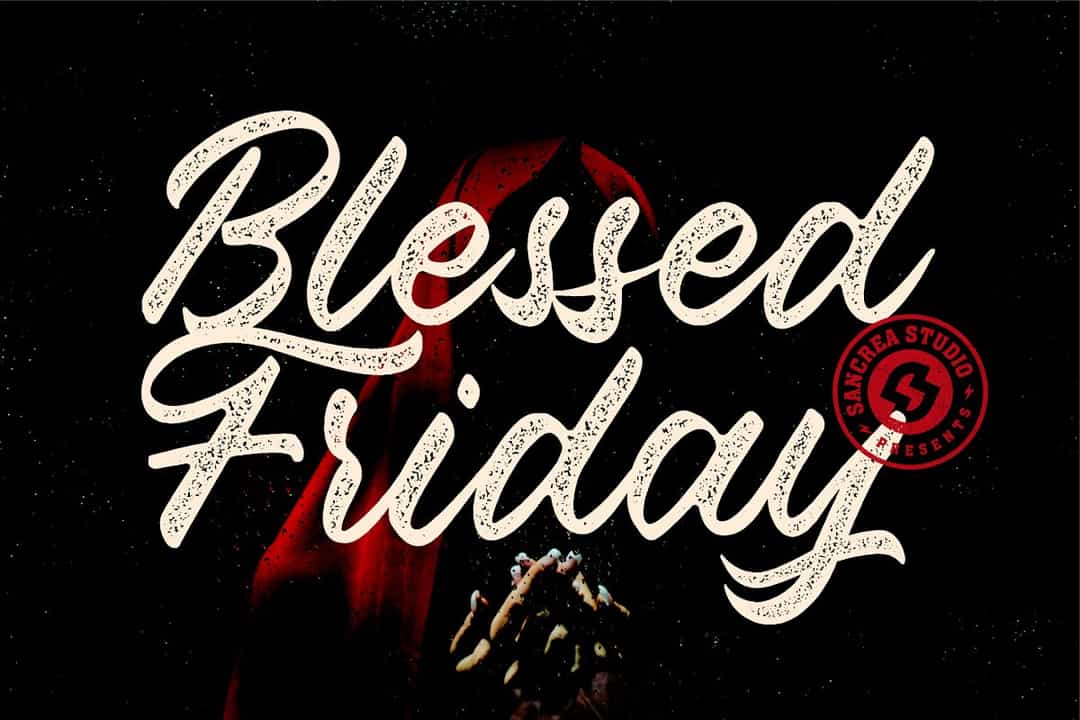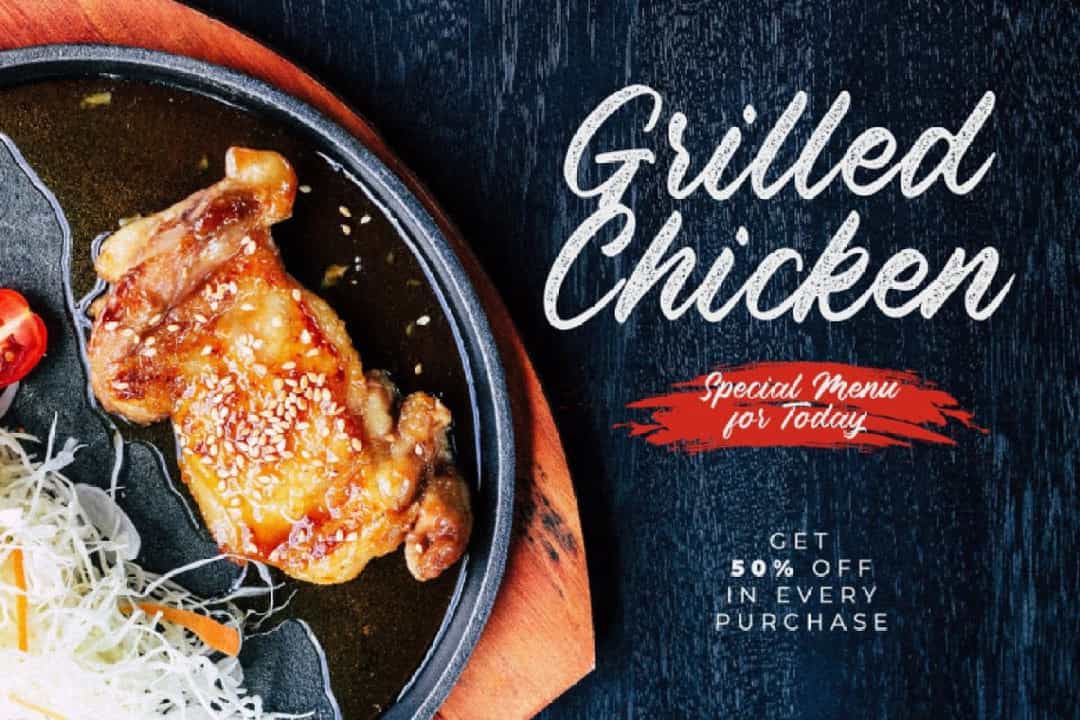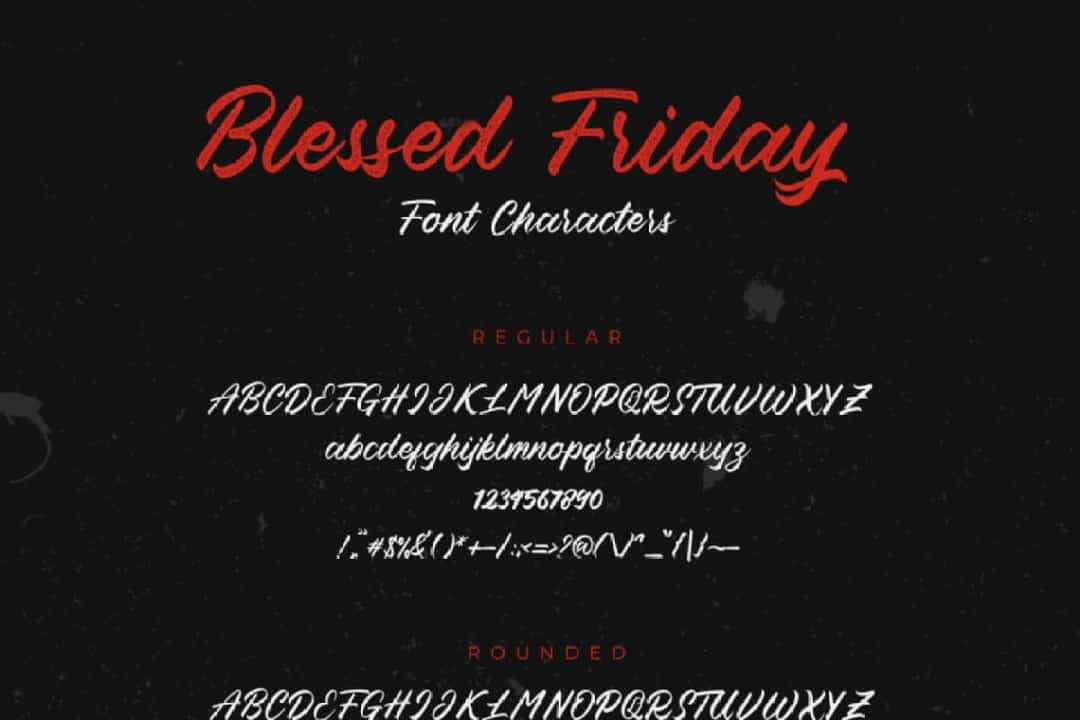
Blessed Friday is a script font that is highly flexible with many designs within the family. This font can be used for logos, badges, or even as a headline for a package; posters; anything. Each of the letters in this font was then grouped into different Open Type features like Stylistic Alternates, Stylistic Sets and Ligatures for easy use.